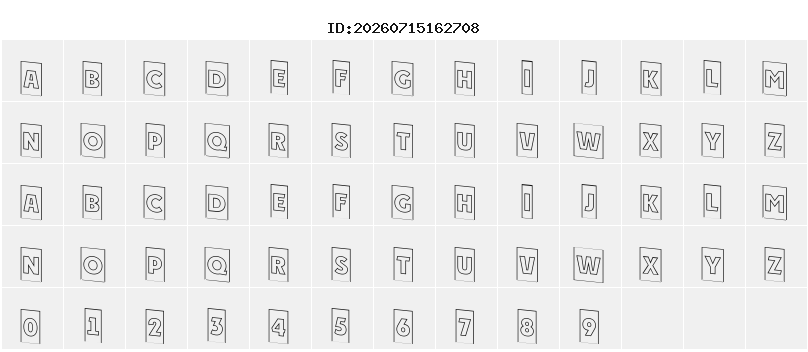
• Font Name: a_PlakatCmOtlDn
• Designer: W.Chufarofsky & M.Slutsker
a_PlakatCmOtlDn.ttf is a modern, elegant sans-serif font designed for ultimate readability and visual harmony. Perfect for branding, headlines, web design, and print materials.